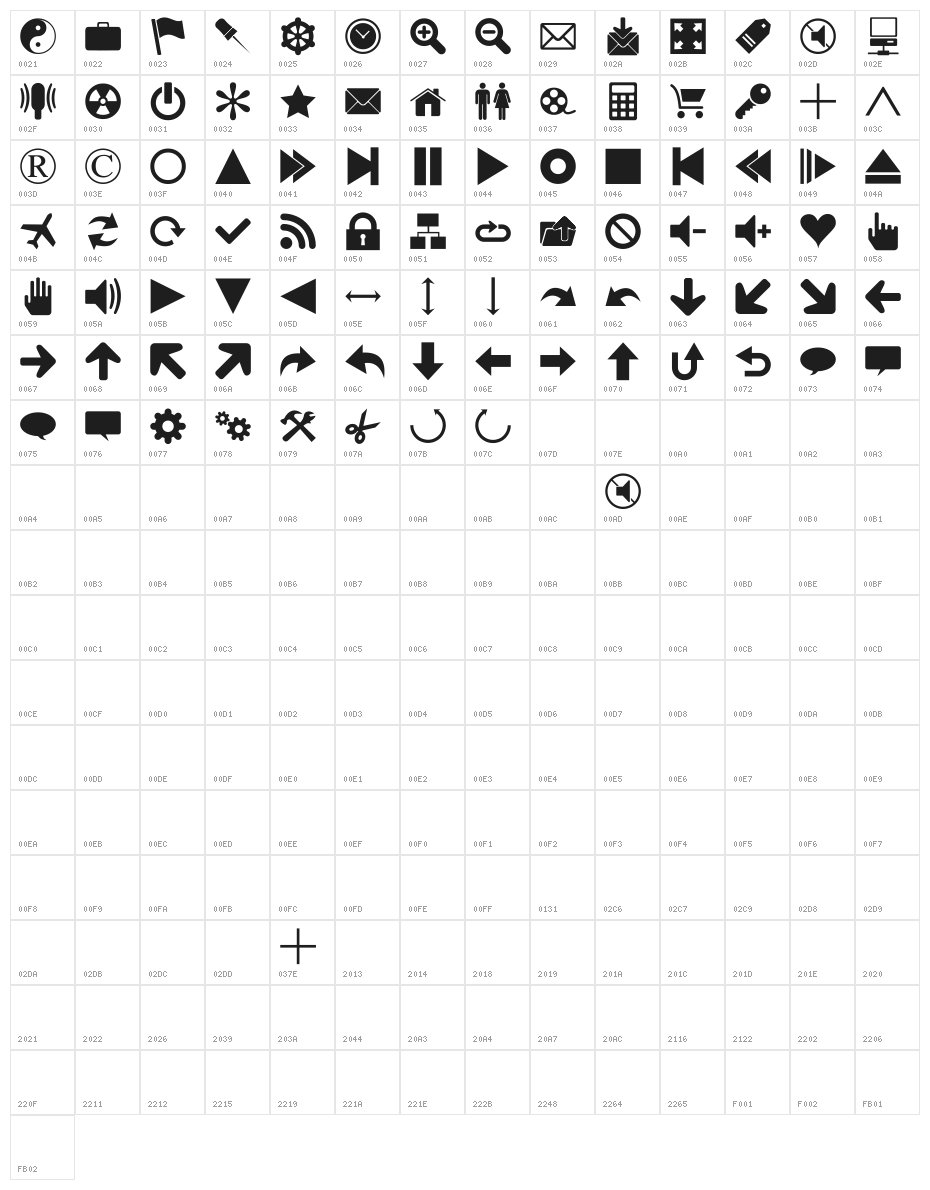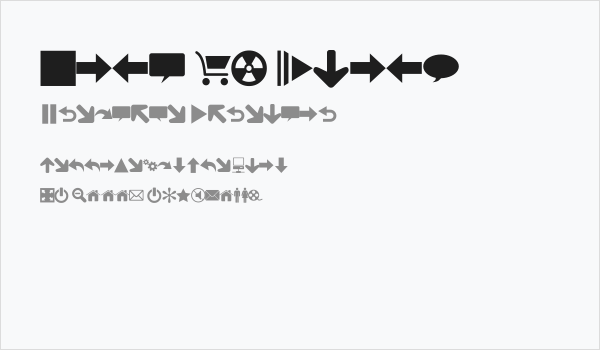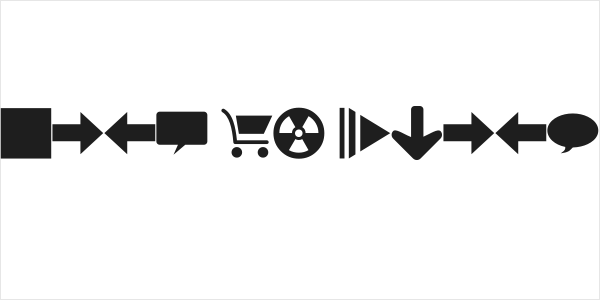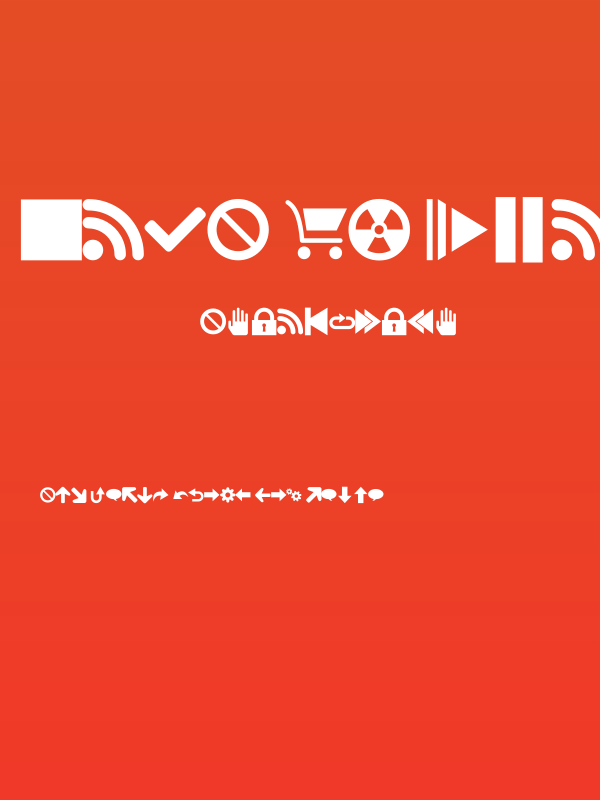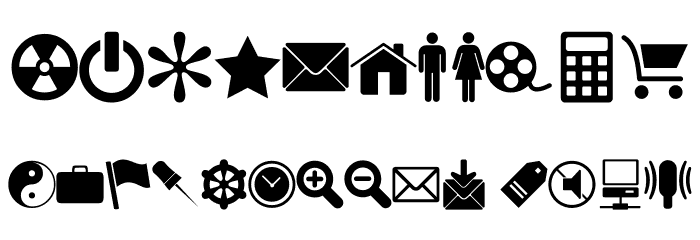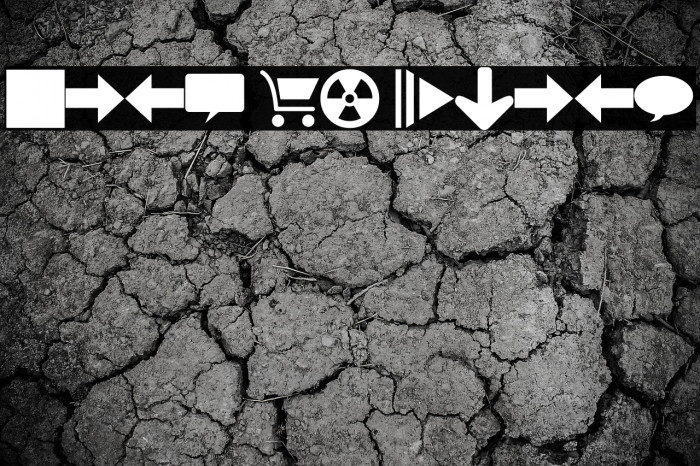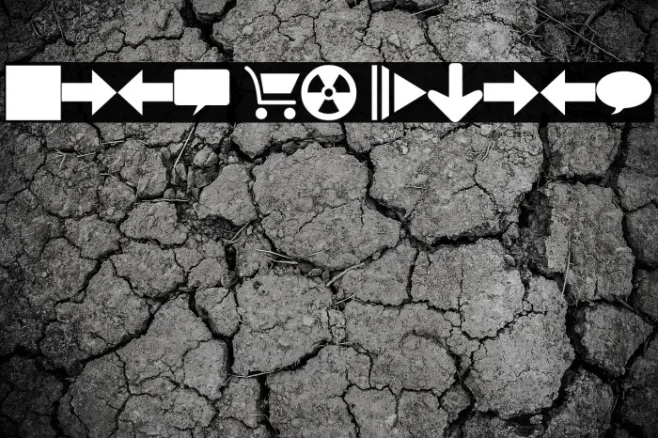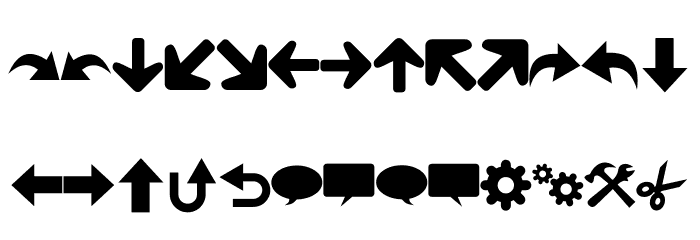
Font 90 Icons Font
Font 90 Icons Description
A collection of bold, solid black pictograms and icons including arrows, media controls, communication symbols, user interface elements, and miscellaneous objects. The icons are geometric, highly simplified, and designed for clear legibility at small sizes.
| Overall Style | Modern, Minimalist |
| Use Case | Icons, UI elements, signage, infographics |
| Proposed Projects | User interfaces, mobile apps, infographics, signage, dashboards, instructional materials. |